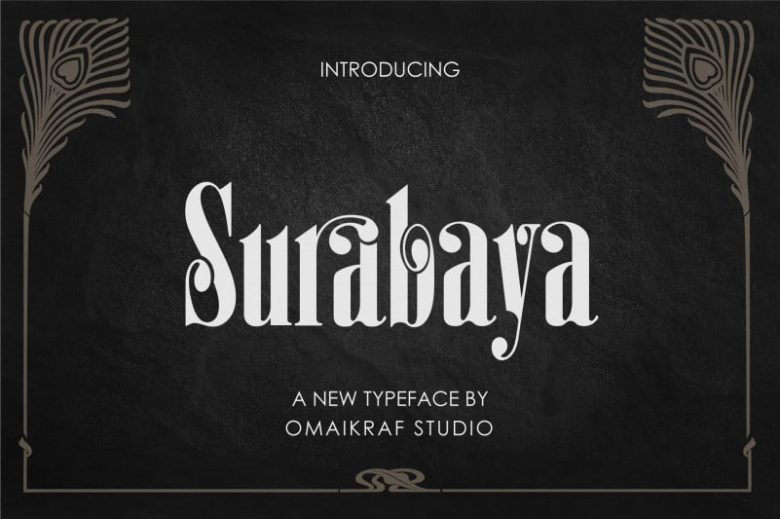
Surabaya Display Font Free
Please introduce Surabaya. Surabaya Display Font is one and only typeface that is built to bring the classic nobility in a modern lifestyle. This font is suitable for branding, films, letterings, occasions, and other related activities. Let your creative artwork be different with Surabaya.